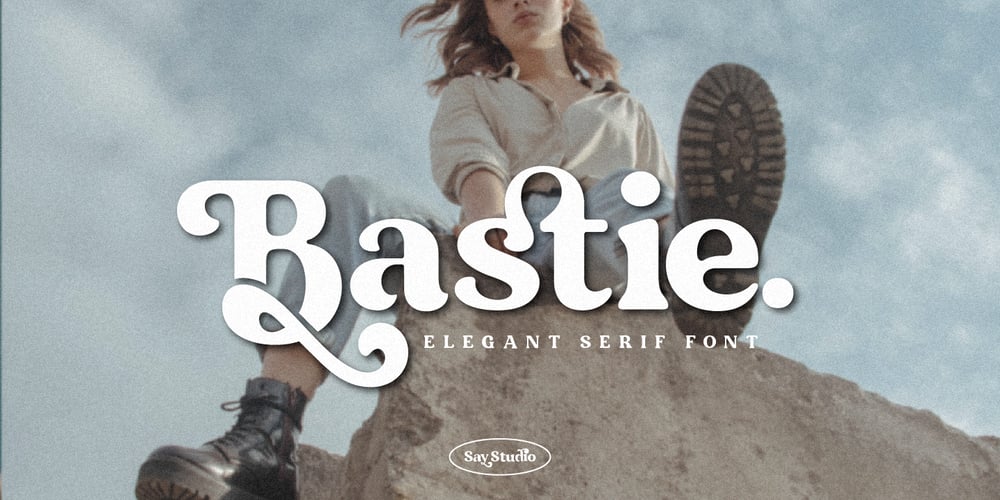
Bastie Font Family was designed by Mussyayin and published by Say Studio. Bastie contains 2 styles and family package options. astie – Elegant Serif FontUnique, playful and versatile serif with 35+ ligatures and 50+ alternates can combine to get curves and beautiful shapes just in seconds.Type the words and Add the unique shapes from Bastie ornament to get a more stunning display.This font is suitable for many design forms, such as magazines, postcards, logos, DIY Projects, invitation cards, quotes, vintage look design, an old classic, the 60s, 70s, 80s, wedding projects and much more.We recommend using Adobe Illustrator or Photoshop.how to access alternate?Adobe Photoshop go to Window – glyphsAdobe Illustrator go to Type – glyphsSupported Languages What’s you get?- Unique Alternates- Multilingual Support- Works on PC & Mac- Simple Installations- Accessible in the Adobe Illustrator, Adobe Photoshop, Microsoft Word even work on Canva!- PUA Encoded Characters- Fully accessible without additional design software.Let me know if you any question:)Have a wonderful DaySay Studio